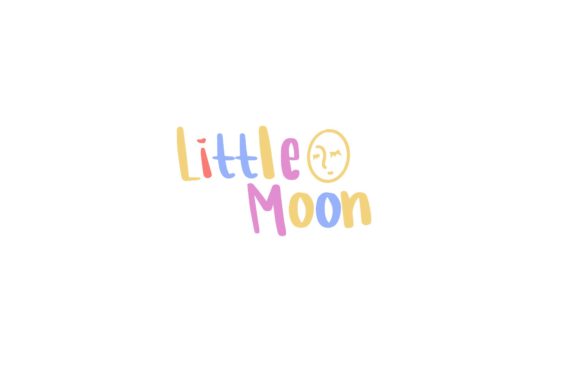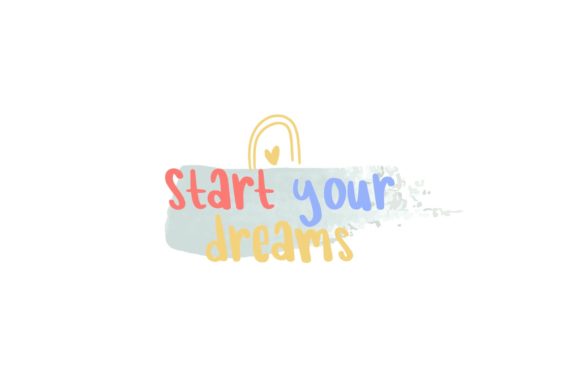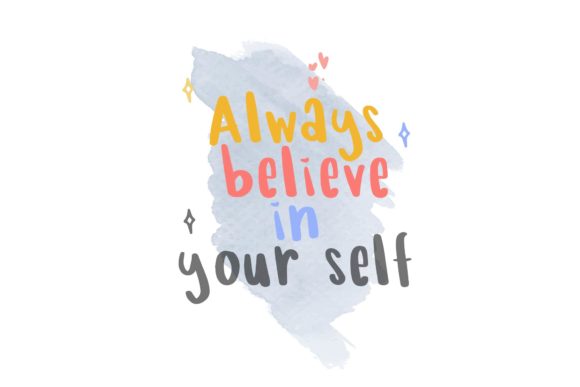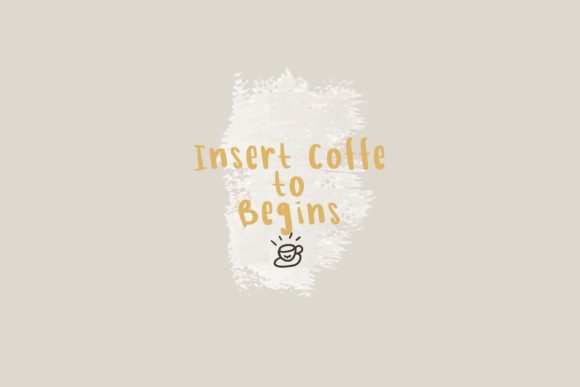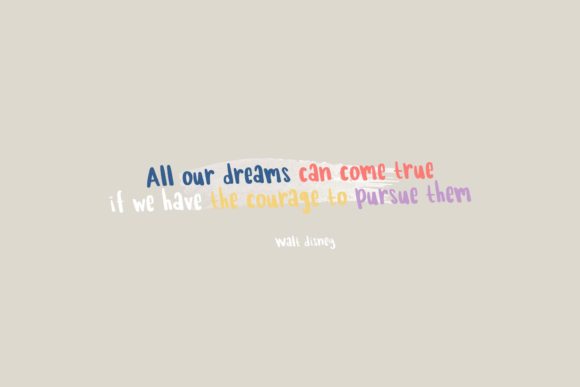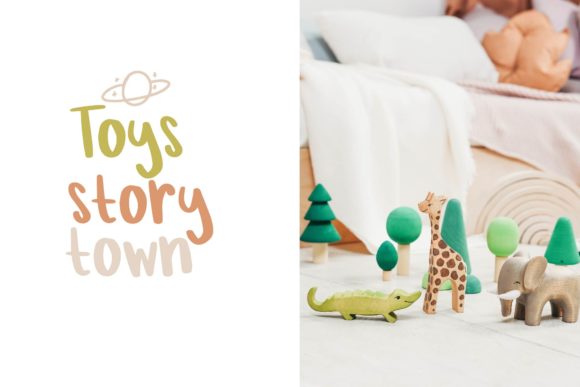
Introduction to Lumierre Bear Font
Have you ever found yourself staring at a blank canvas, eager to bring your creative project to life? The excitement of designing something new can be overwhelming, but the right tools can make all the difference. That’s where the Lumierre Bear Font comes in – a playful and cute display font that’s sure to add a touch of whimsy to your work.
As a designer, you’re constantly on the lookout for high-quality design resources that can help you stand out from the crowd. The Lumierre Bear Font is a valuable addition to your toolkit, offering a free download that’s perfect for a wide range of creative projects. Whether you’re working on a logo, social media graphics, or a fun poster, this font is sure to bring a smile to your face and a touch of personality to your design.
Key Features of Lumierre Bear Font
- Unique, hand-drawn design with transparent background for versatility
- Includes 500+ glyphs, supporting multiple languages and scripts
- Perfect for logos, branding, and other design elements requiring a distinctive touch
Honest Review: Lumierre Bear Font
I recently stumbled upon the Lumierre Bear Font, and I’m excited to share my thoughts on this unique design resource. As a designer, I’m always on the lookout for high-quality fonts that can elevate my creative projects. The Lumierre Bear Font is a free download, which is a definite plus.
One of the standout features of this font is its transparent background, making it a great choice for designers who want to create visually appealing and intricate designs. The font’s playful and whimsical style is perfect for projects that require a touch of personality.
Here are some of the things that work well for me:
- ✨ Unique and creative design style
- ✨ Perfect for projects that require a whimsical touch
- ✨ High-quality font with a transparent background
- ⚠️ Limited character set, which may be a concern for designers who need a wide range of characters
- ⚠️ Not ideal for formal or professional projects, as it may come across as too playful
Overall, I think the Lumierre Bear Font is a great design resource for creative projects that require a touch of whimsy. While it may have some limitations, it’s a high-quality font that’s definitely worth checking out.
Tips for Getting the Most Out of Lumierre Bear Font
For the best results, use Lumierre Bear Font on a transparent background to create a clean and modern look. Experiment with different font sizes and styles to add visual interest to your design.
Lumierre Bear Font is ideal for creative projects, including:
- Children’s book illustrations
Alternatives to Lumierre Bear Font
Pacifico is a beautiful, high-quality font that is perfect for creative projects. It features a clean and elegant design with a transparent background, making it ideal for use in logos, branding, and other design elements. When to use: Pacifico is suitable for any project that requires a touch of sophistication and elegance.
Compared to Lumierre Bear Font, Pacifico has a more refined and classic feel, making it a great choice for projects that require a high level of professionalism.
Great Vibes is a fun and playful font that is perfect for creative projects that require a touch of whimsy. It features a bold and expressive design with a transparent background, making it ideal for use in logos, branding, and other design elements. When to use: Great Vibes is suitable for any project that requires a fun and playful tone.
Compared to Lumierre Bear Font, Great Vibes has a more energetic and lively feel, making it a great choice for projects that require a bold and attention-grabbing design.
Ostrich Sans is a high-quality font that is perfect for creative projects. It features a clean and modern design with a transparent background, making it ideal for use in logos, branding, and other design elements. When to use: Ostrich Sans is suitable for any project that requires a clean and modern look.
Compared to Lumierre Bear Font, Ostrich Sans has a more minimalist and sleek feel, making it a great choice for projects that require a simple and elegant design.